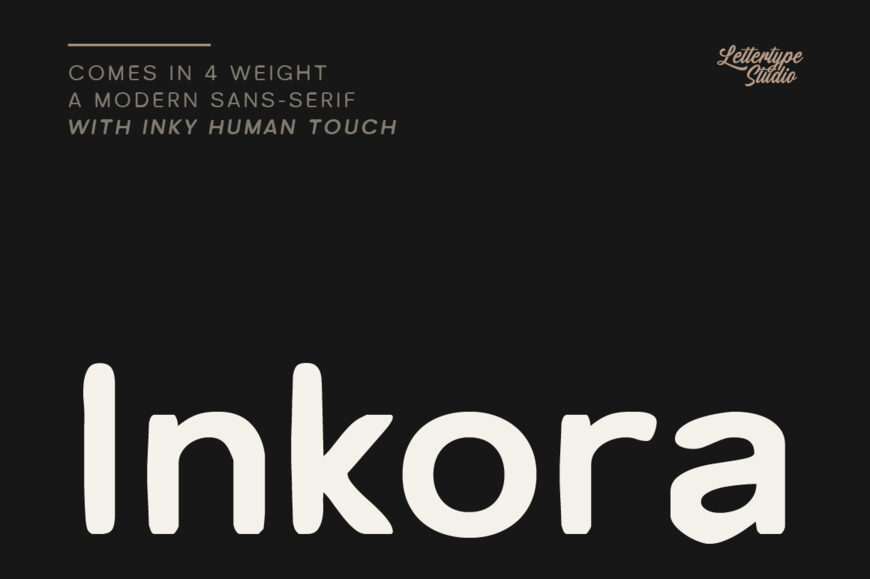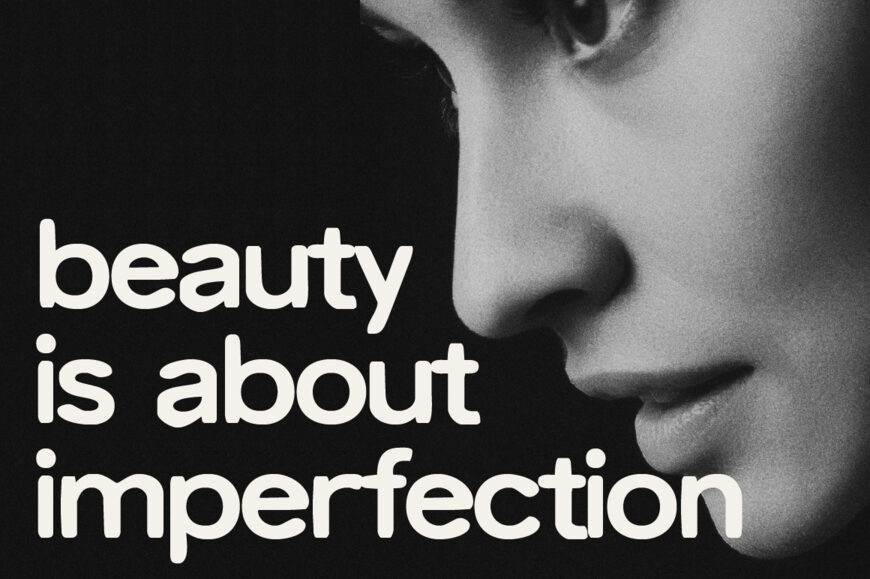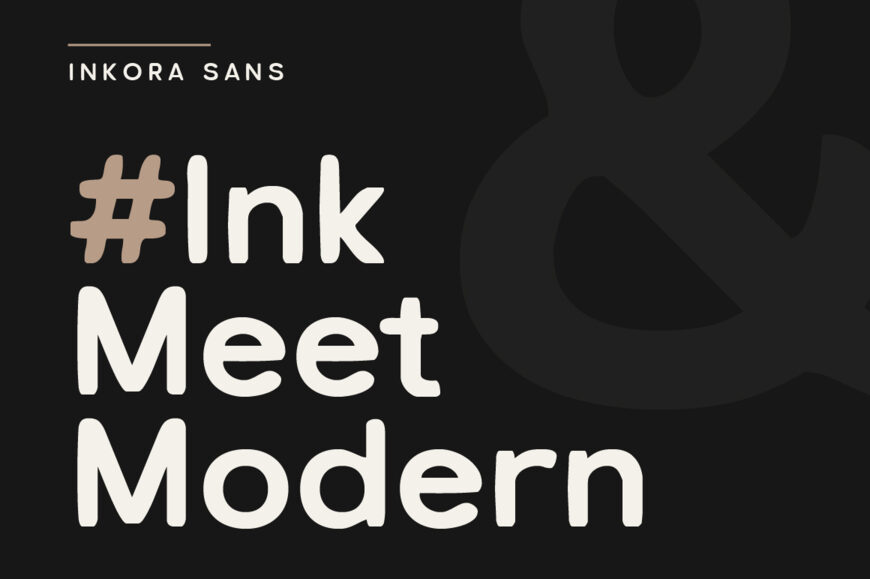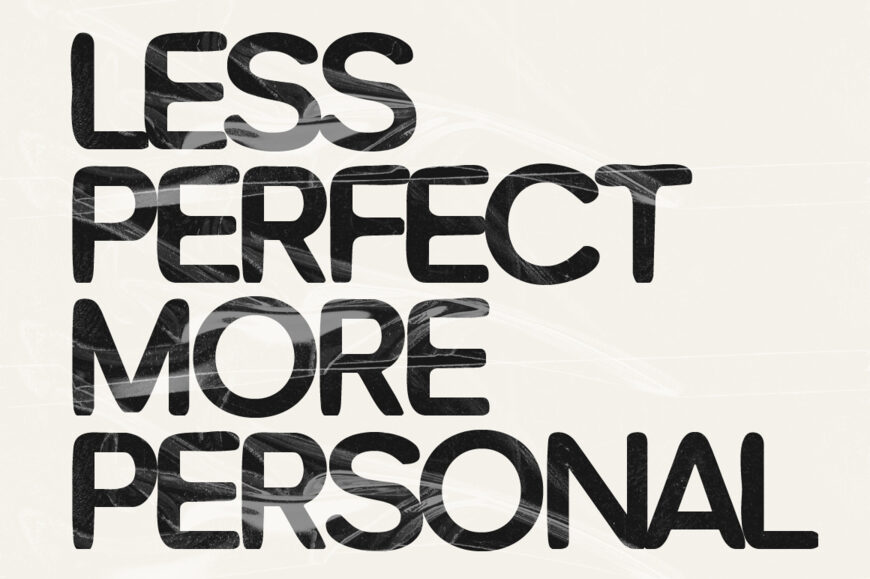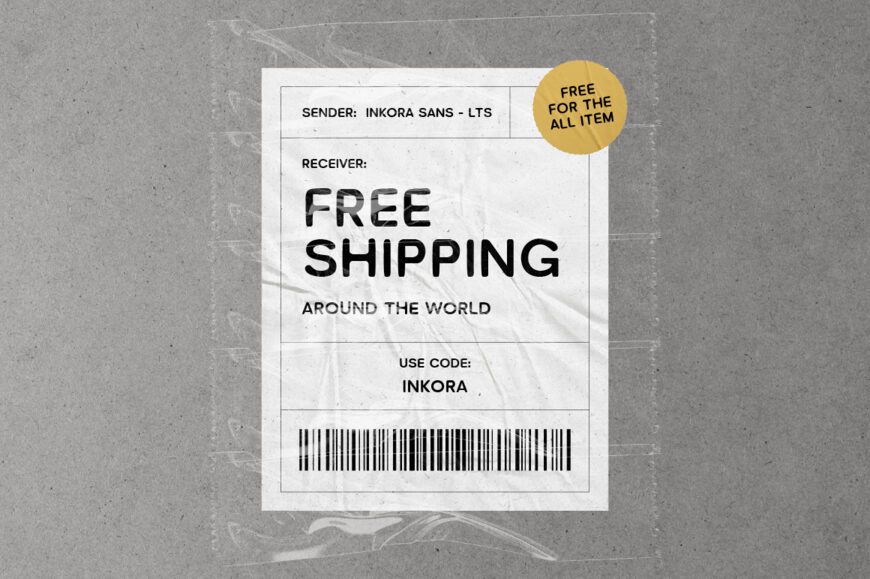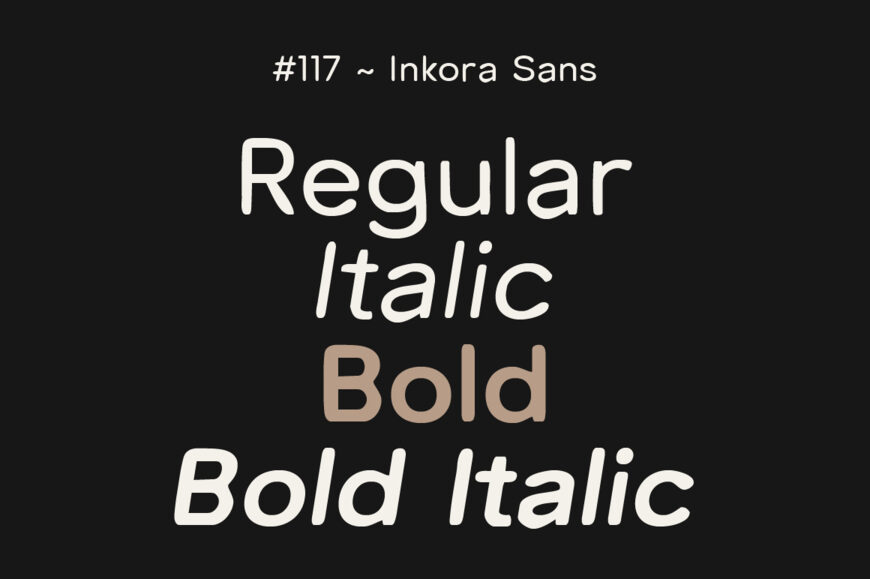
Inkora Sans is a versatile modern sans serif typeface designed with a subtle inky personality and a human touch. Its clean contemporary construction is balanced by organic curves, natural proportions, and small imperfections that keep the letterforms expressive without losing their clarity. The result is a modern display sans that feels both refined and approachable.
Available in 4 weights, Inkora Sans offers enough flexibility to create contrast across headlines, titles, supporting typography, and expressive layouts. Inkora Sans works especially well for branding, editorial layouts, posters, packaging, social media graphics, campaigns, creative identities, and contemporary display typography.